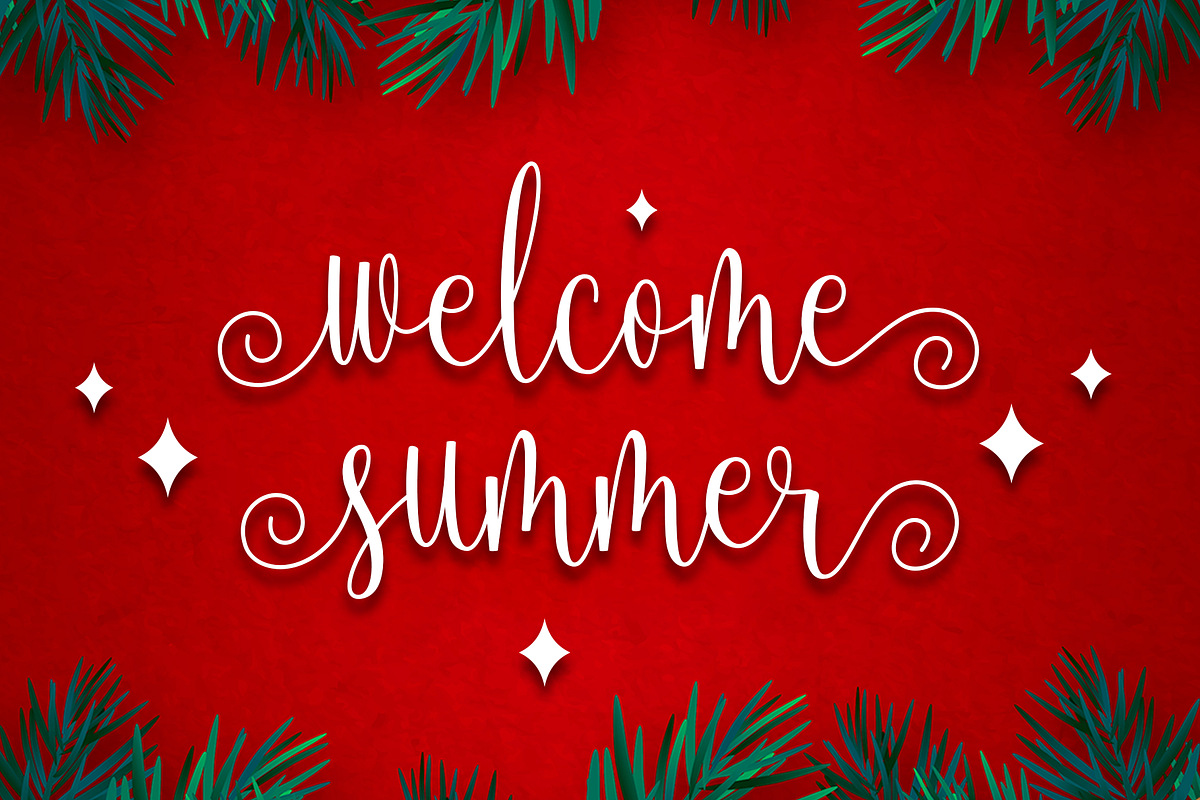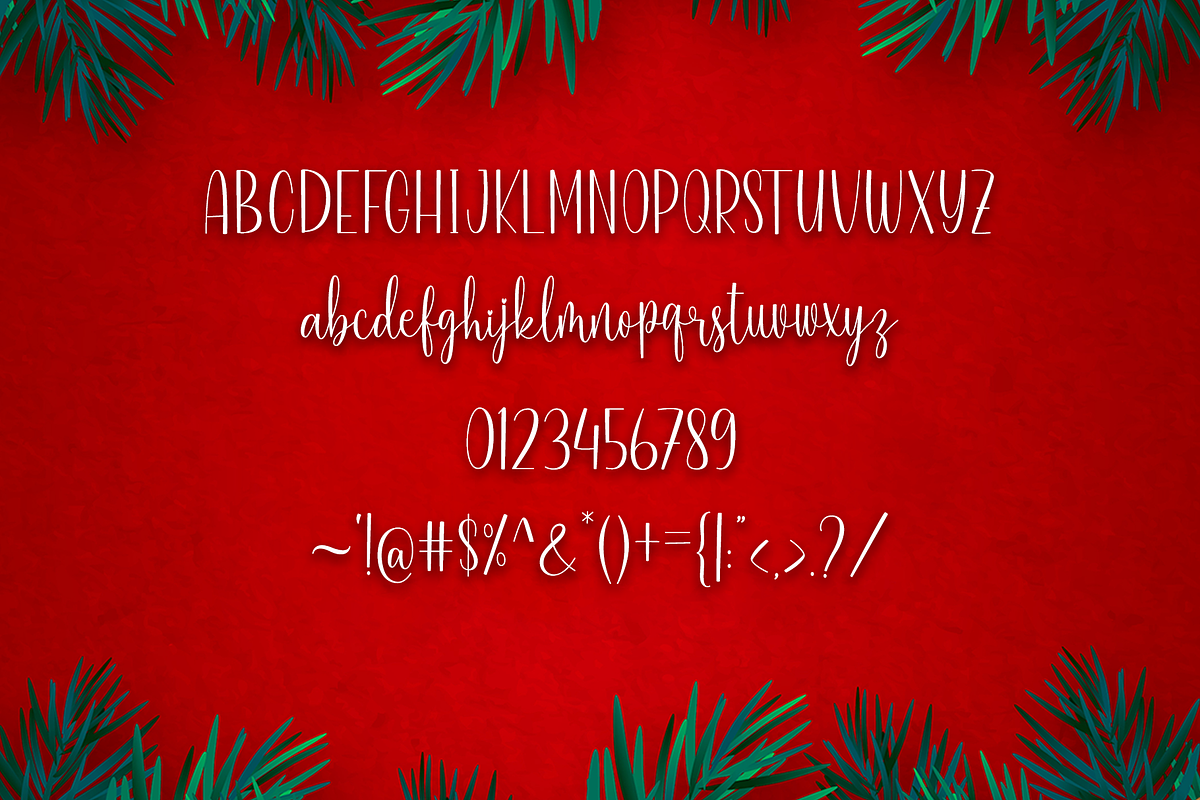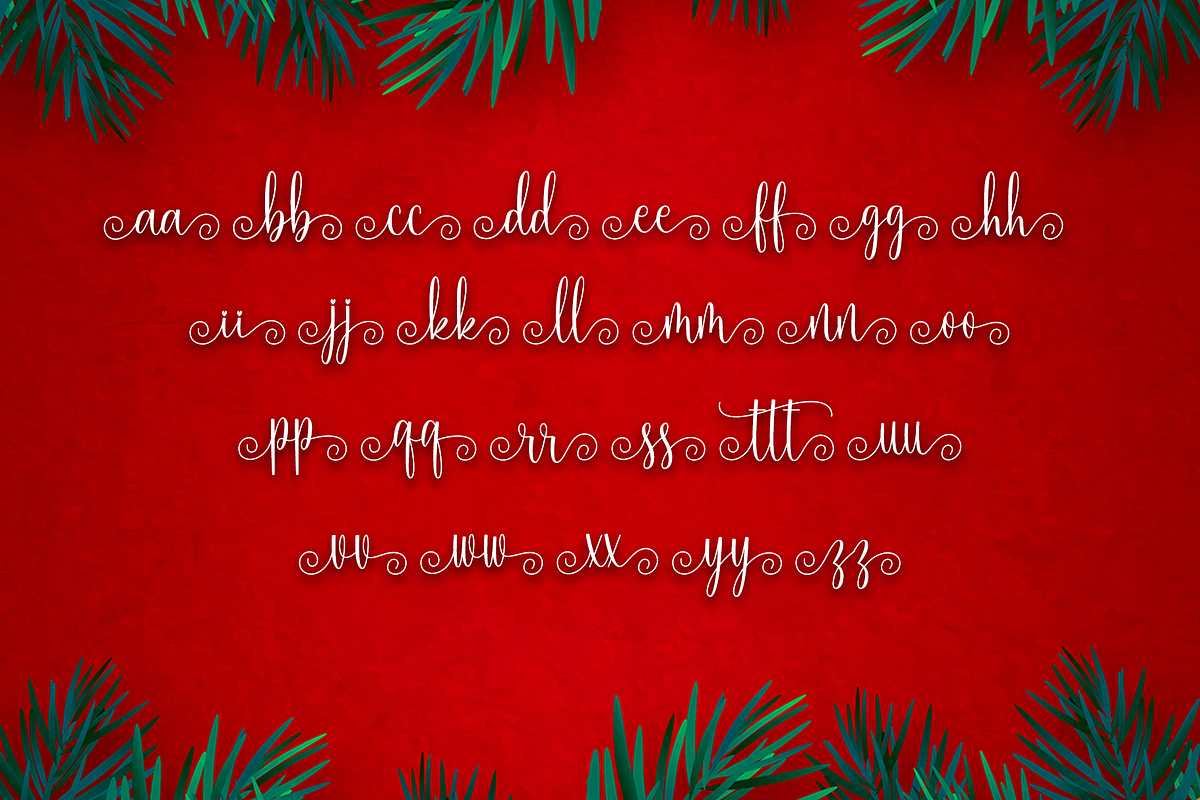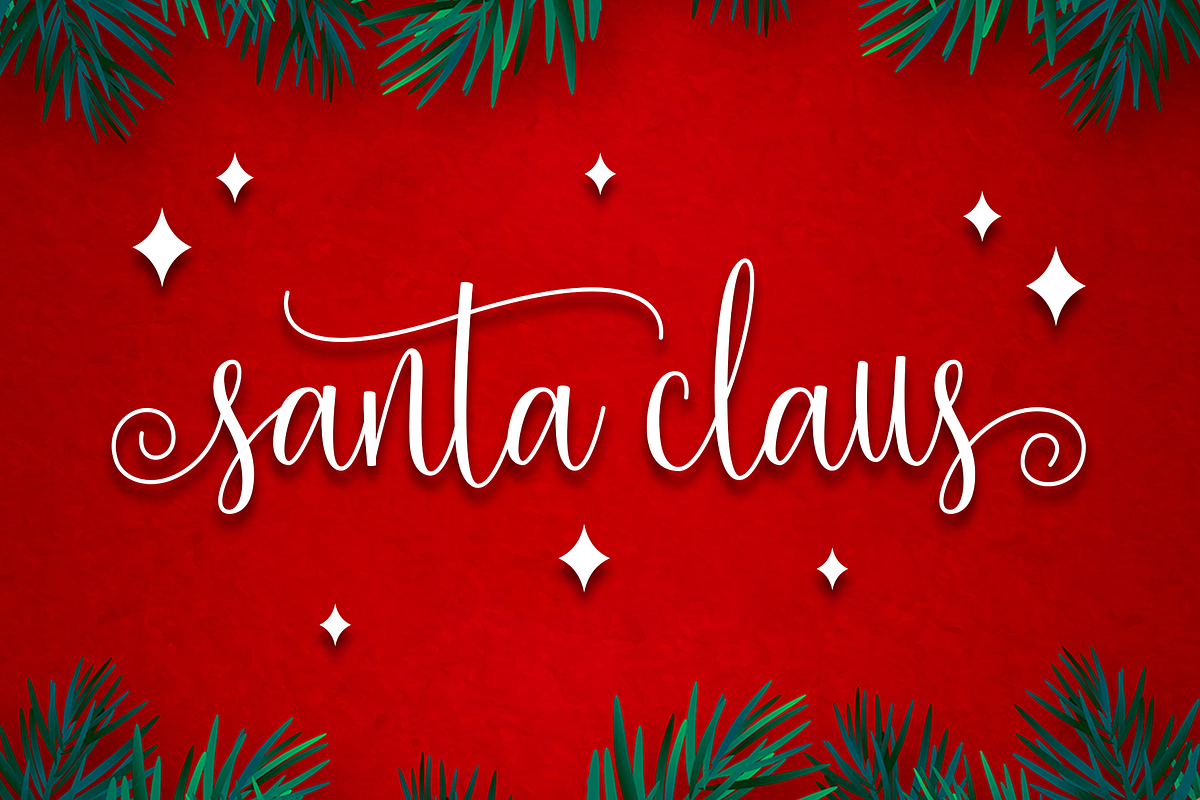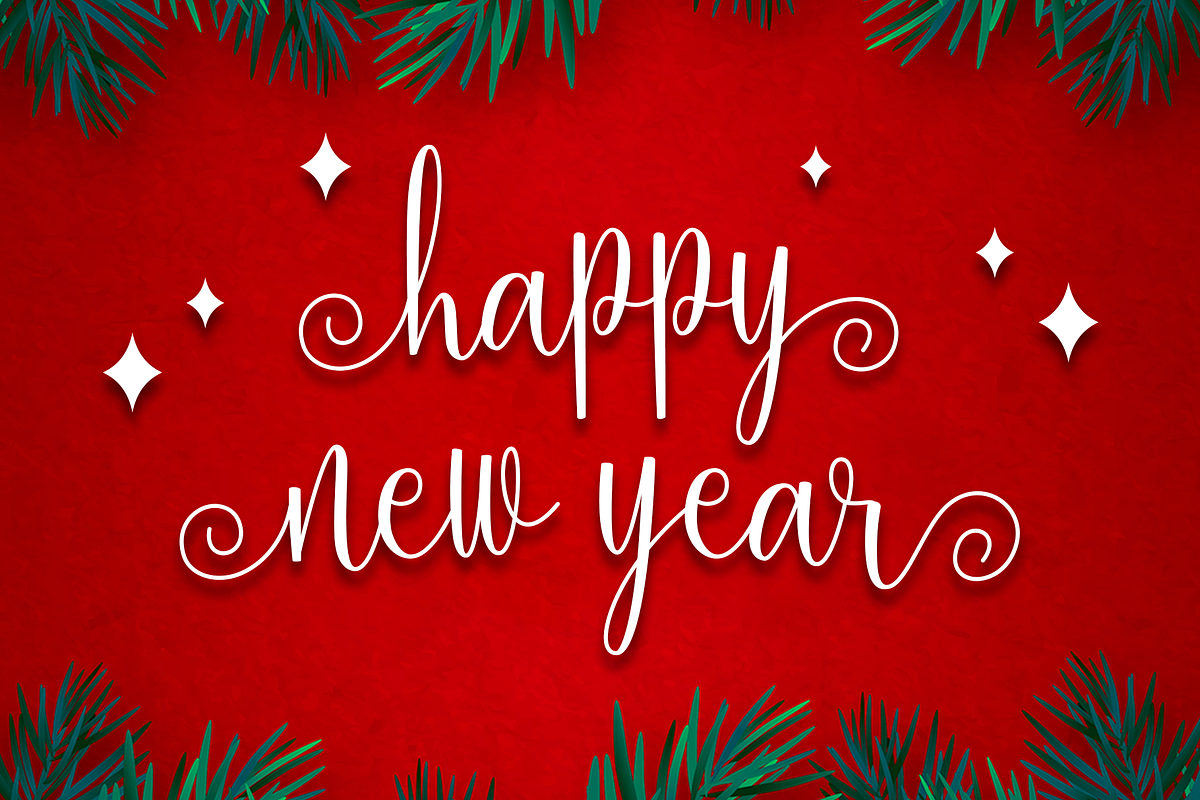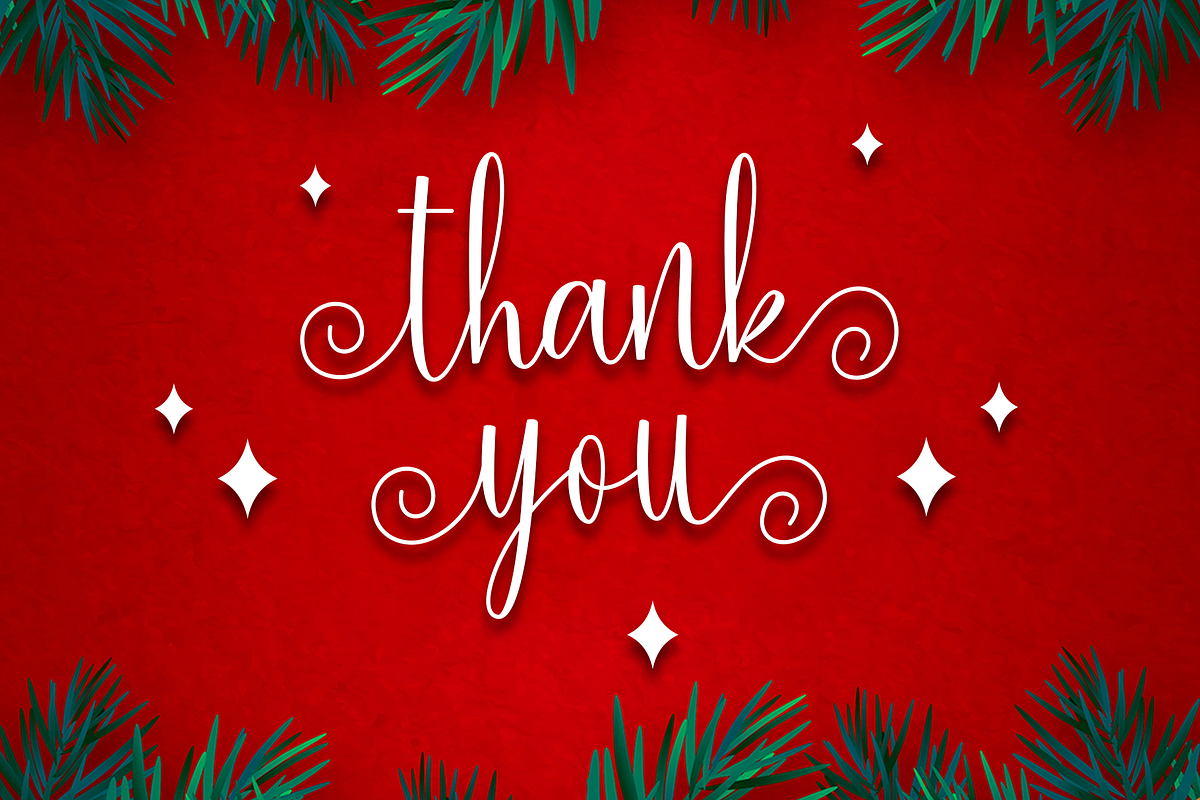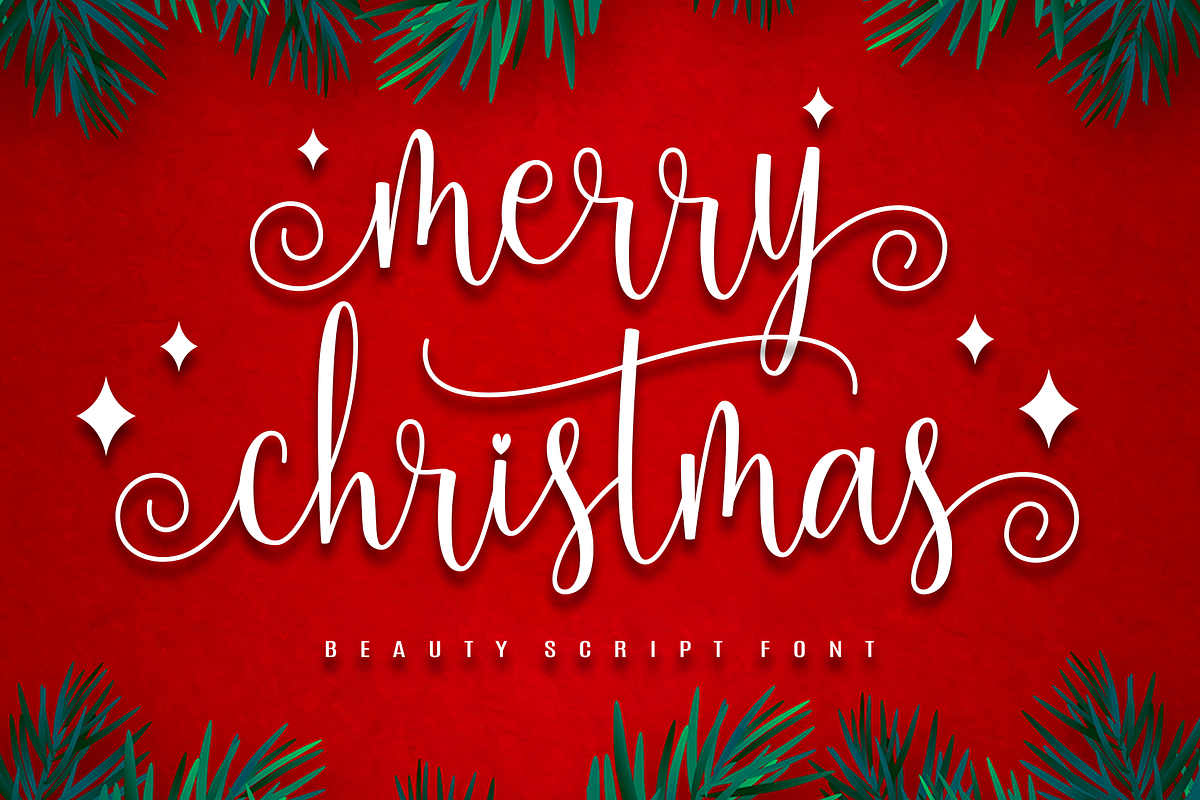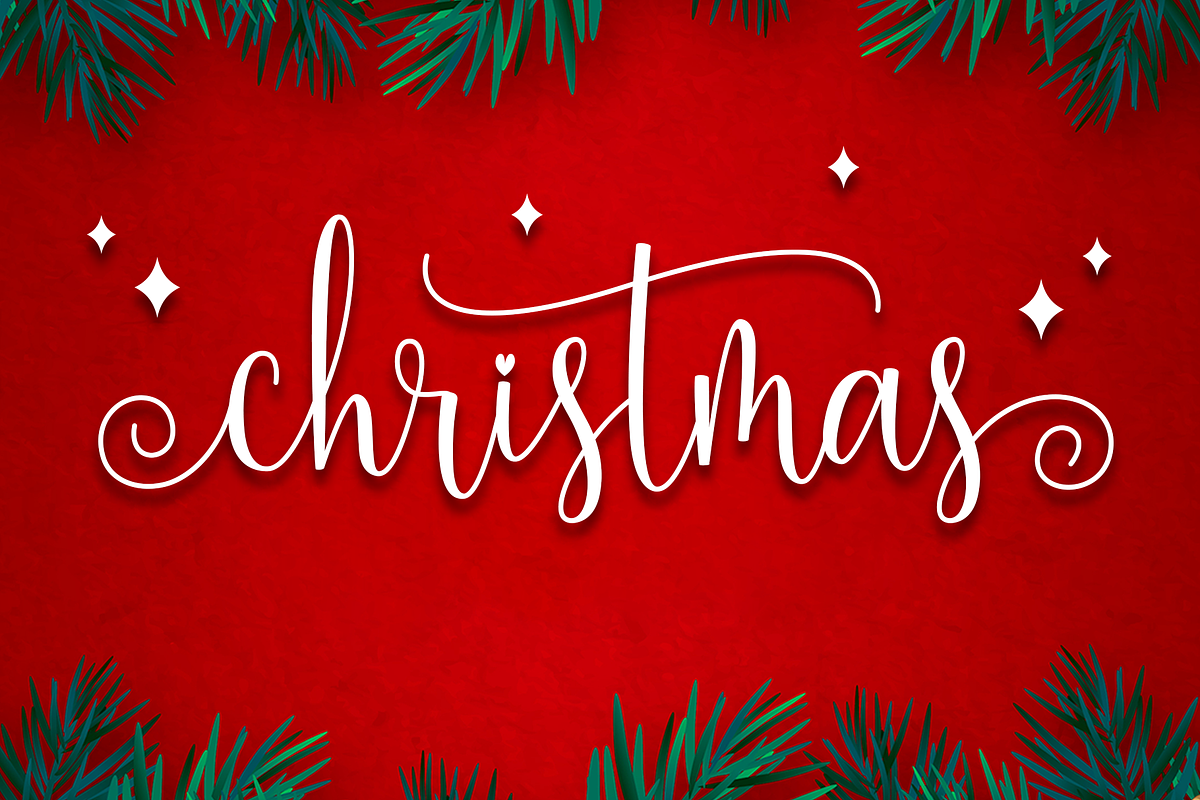
Merry Christmas
Introducing Merry Christmas, a captivating font that emanates love and joy with each curvaceous stroke. Its charming charisma isn’t just pleasing to the eye, it breathes life into your end-of-year projects, bestowing upon them a delightful and heartwarming appeal. Inject a feeling of festive charm into your work with this stunning, one-of-a-kind font that perfectly encapsulates holiday cheer and the spirit of the season. With Christmas, you can turn every detail into a magical masterpiece.